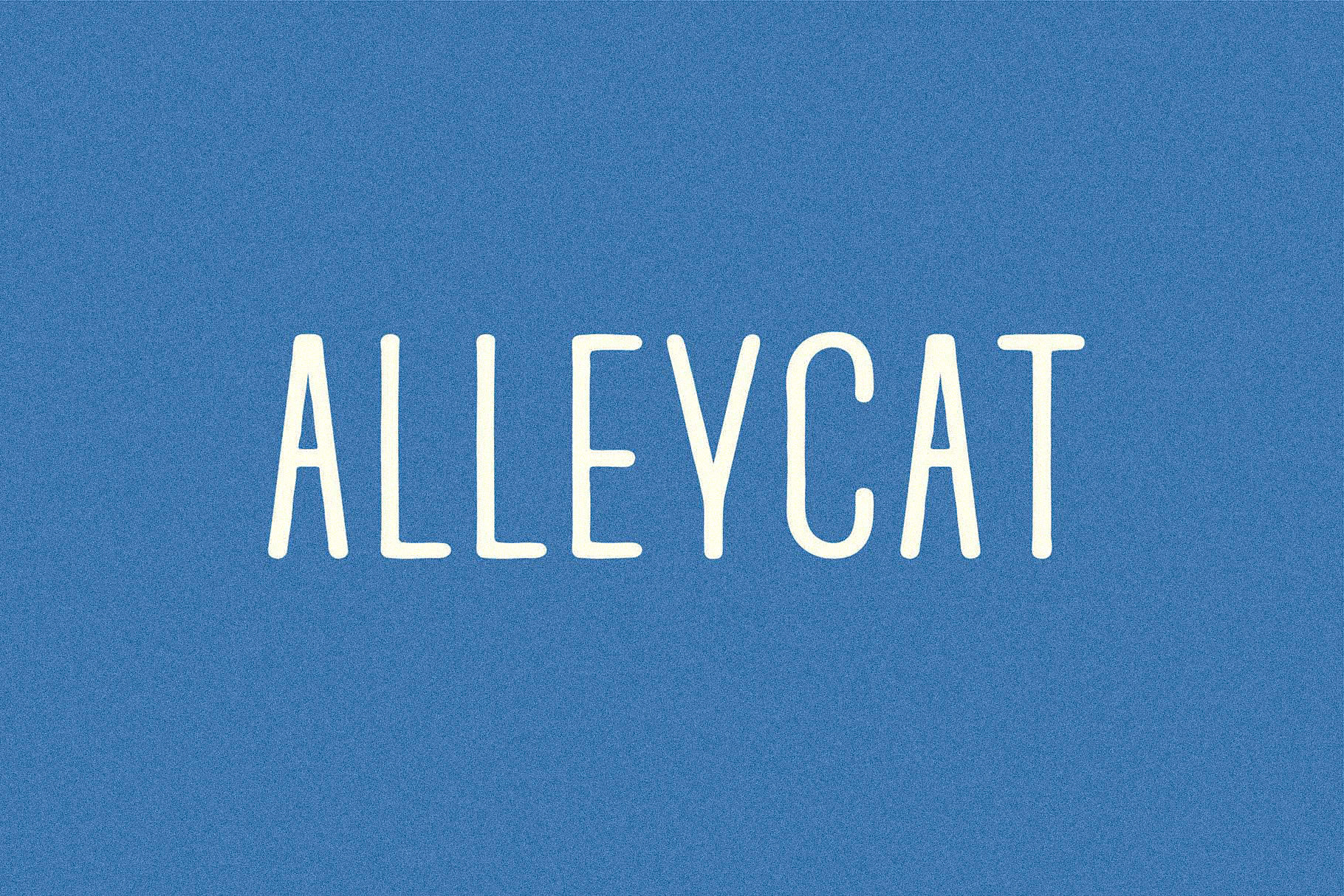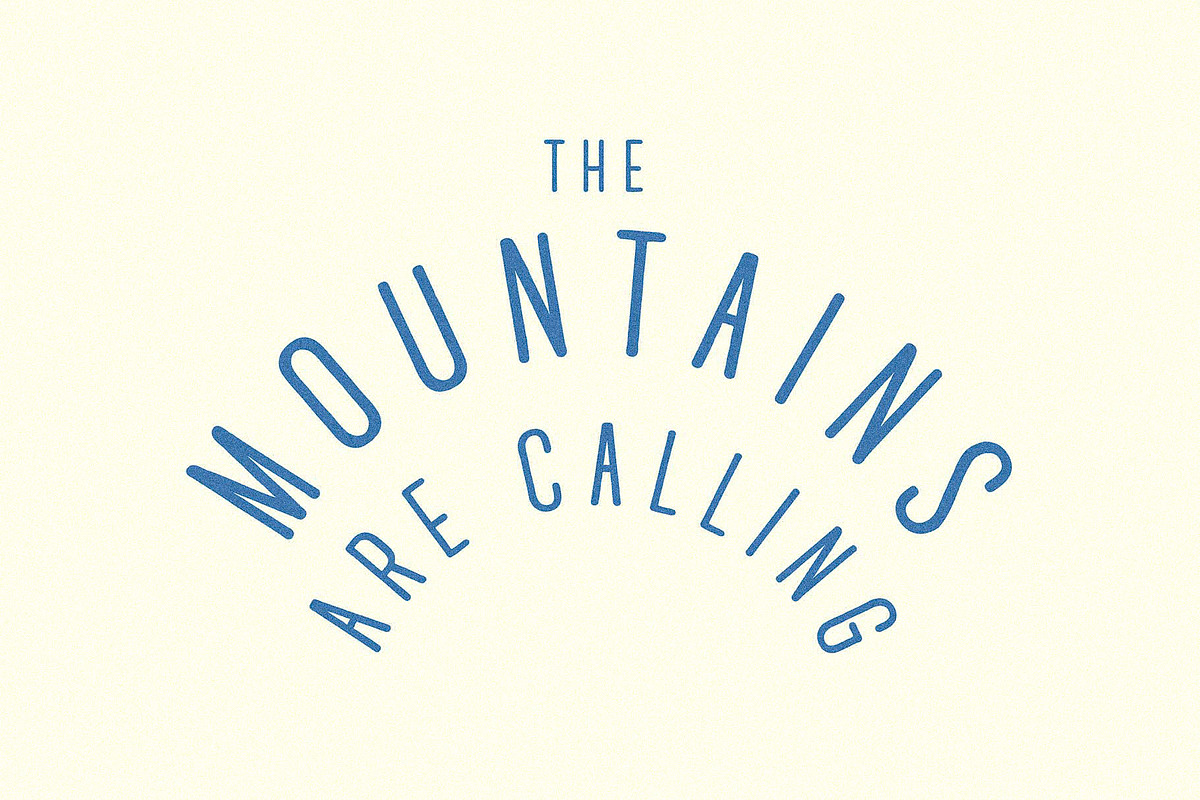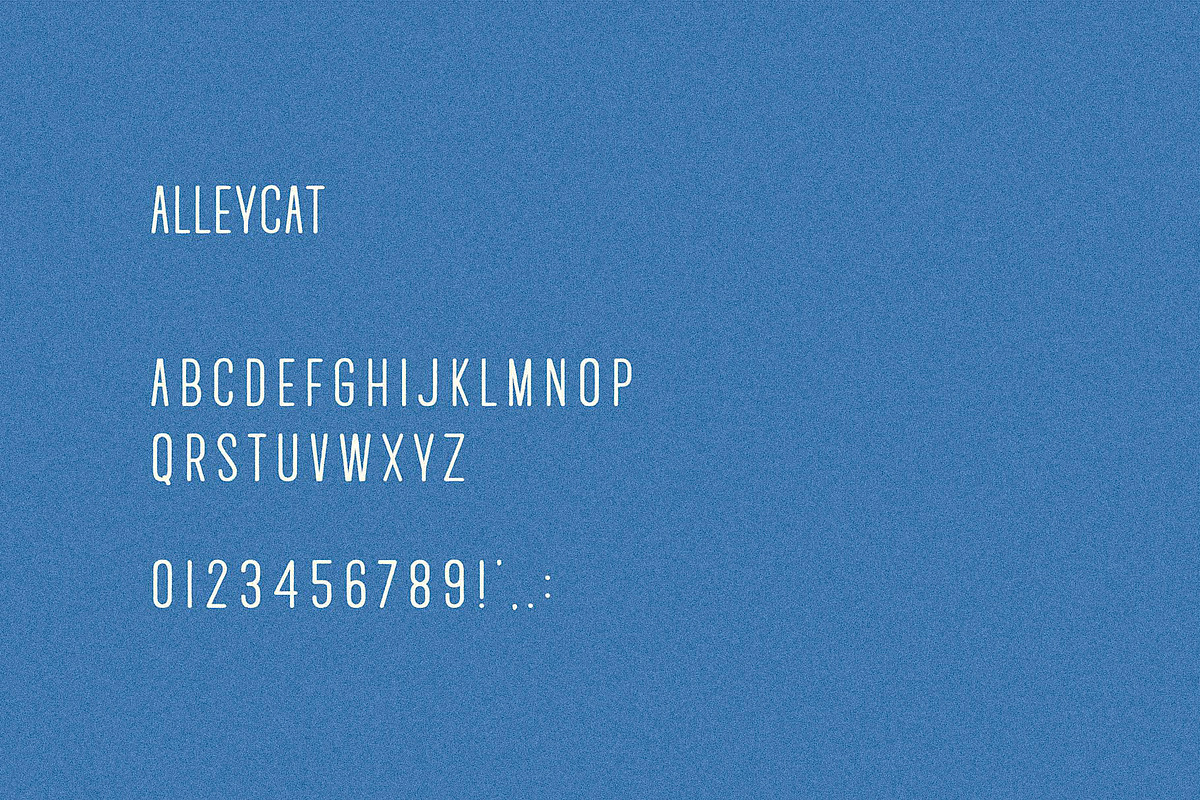
Alleycat I A Rounded Sans Serif Font
Is it time for a typeface to bring us back down to earth? I hope so, cause it’s here. Alleycat is a multi-width sans font made by hand.
Contains single-case A-Z (regular, condensed, mad condensed, extended, and extended oblique) numbers 0-9 and basic punctuation.